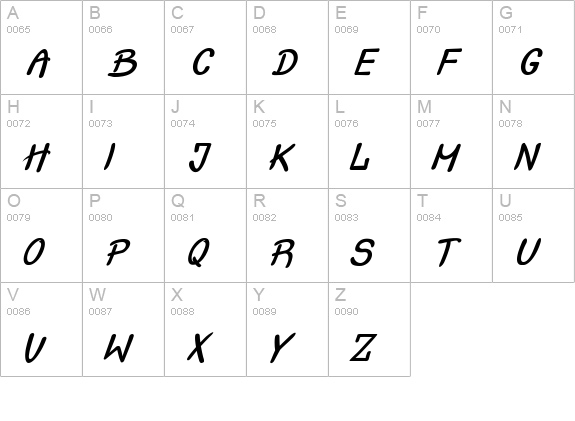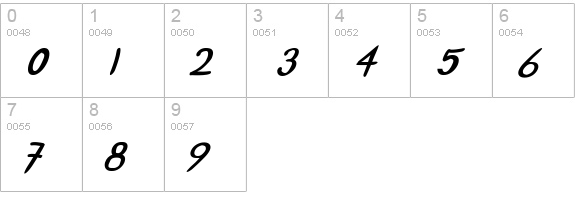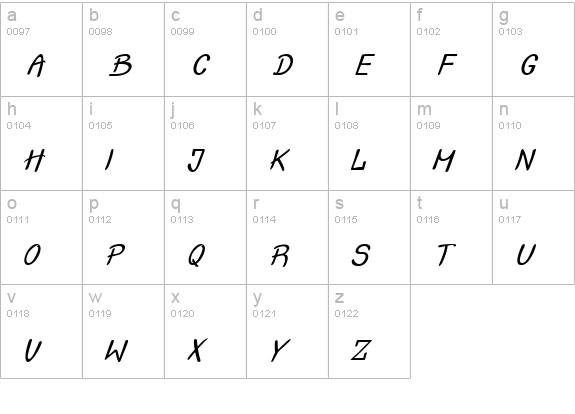
Crash Test Italic is a distinctive, italic variant in the Crash typeface family \xE2\x80\x94 well suited to design and typography projects.
Introducing Crash Test Italic font - a bold and dynamic typeface perfect for making a statement in your design projects. This font exudes a sense of energy and movement, making it ideal for attention-grabbing headlines and bold graphics. The italicized style adds a touch of modernity and flair to any text it graces. The best part? Crash Test Italic font is available for free download at FontsMarket.com. That's right, you can add this eye-catching font to your collection without spending a dime. Don't miss out on the opportunity to enhance your designs with this versatile and striking typeface. Download Crash Test Italic today and let your creativity soar!